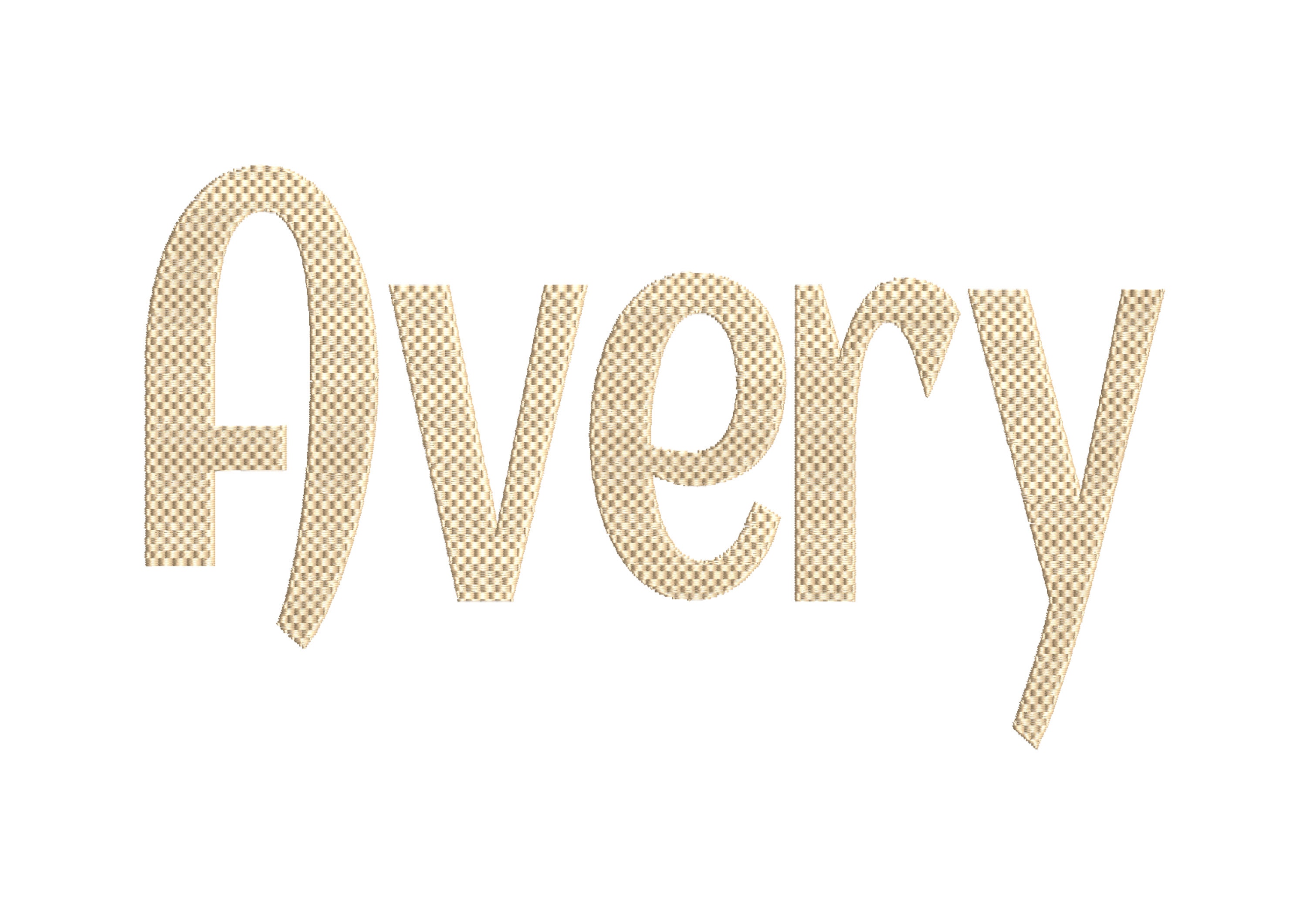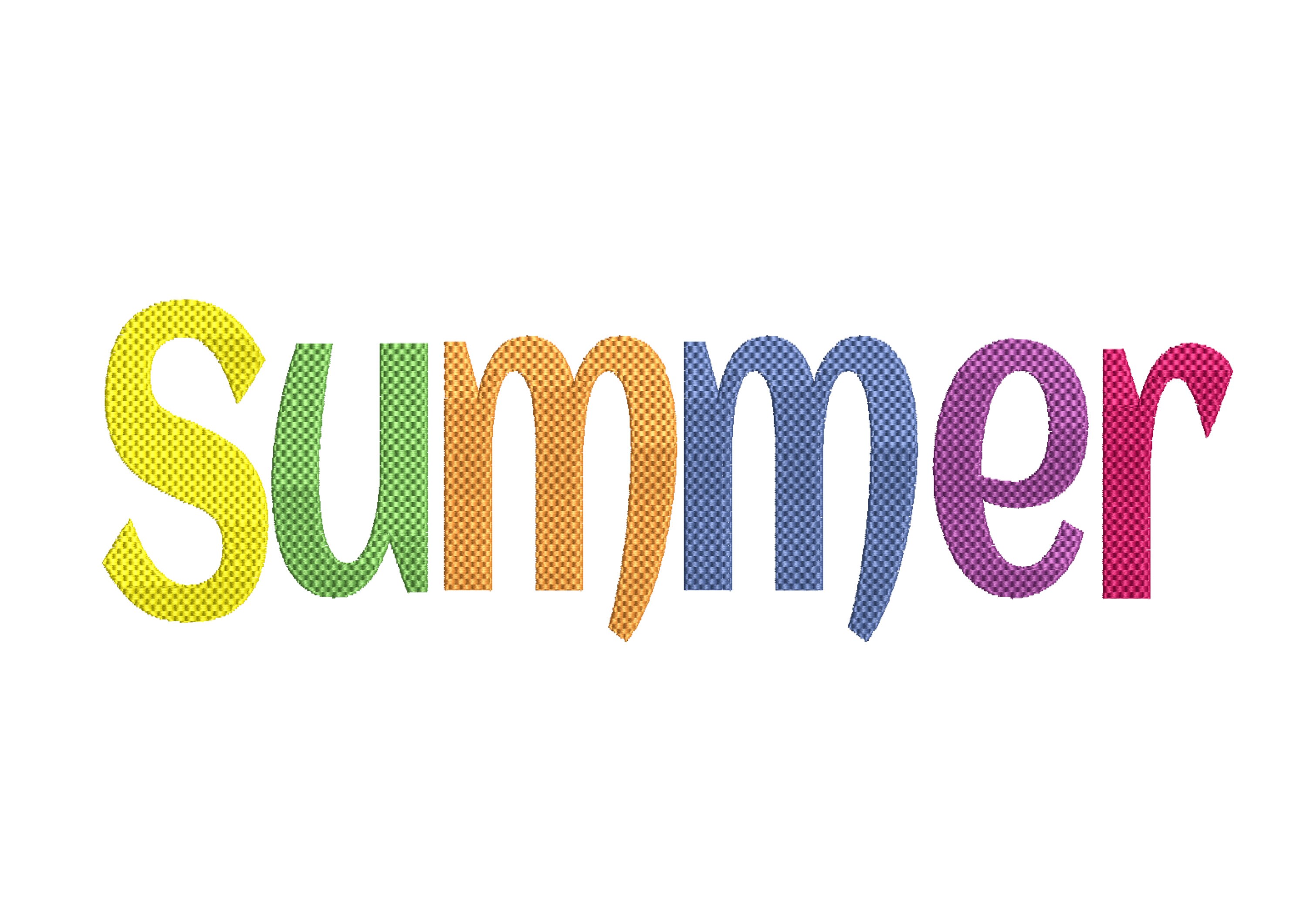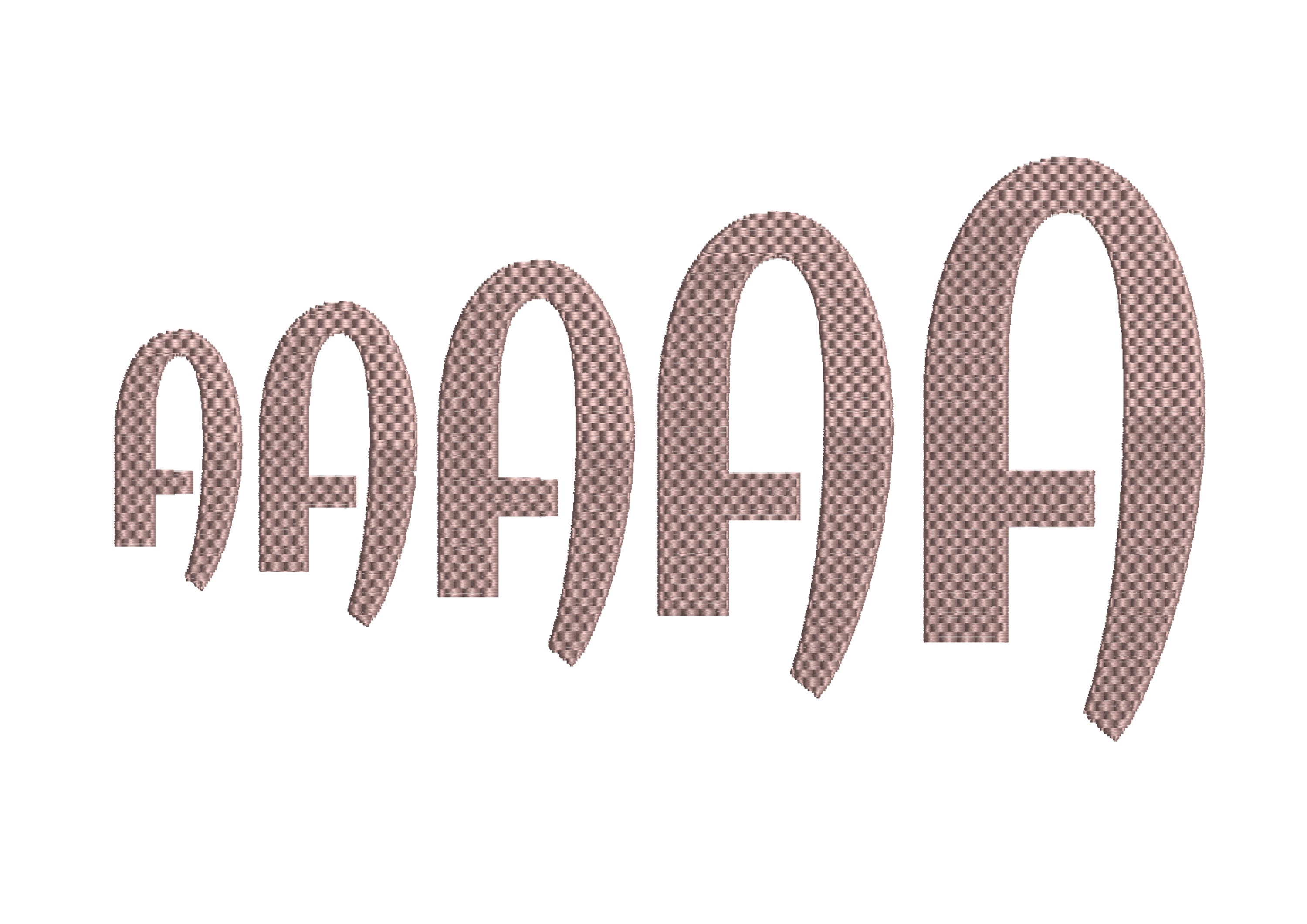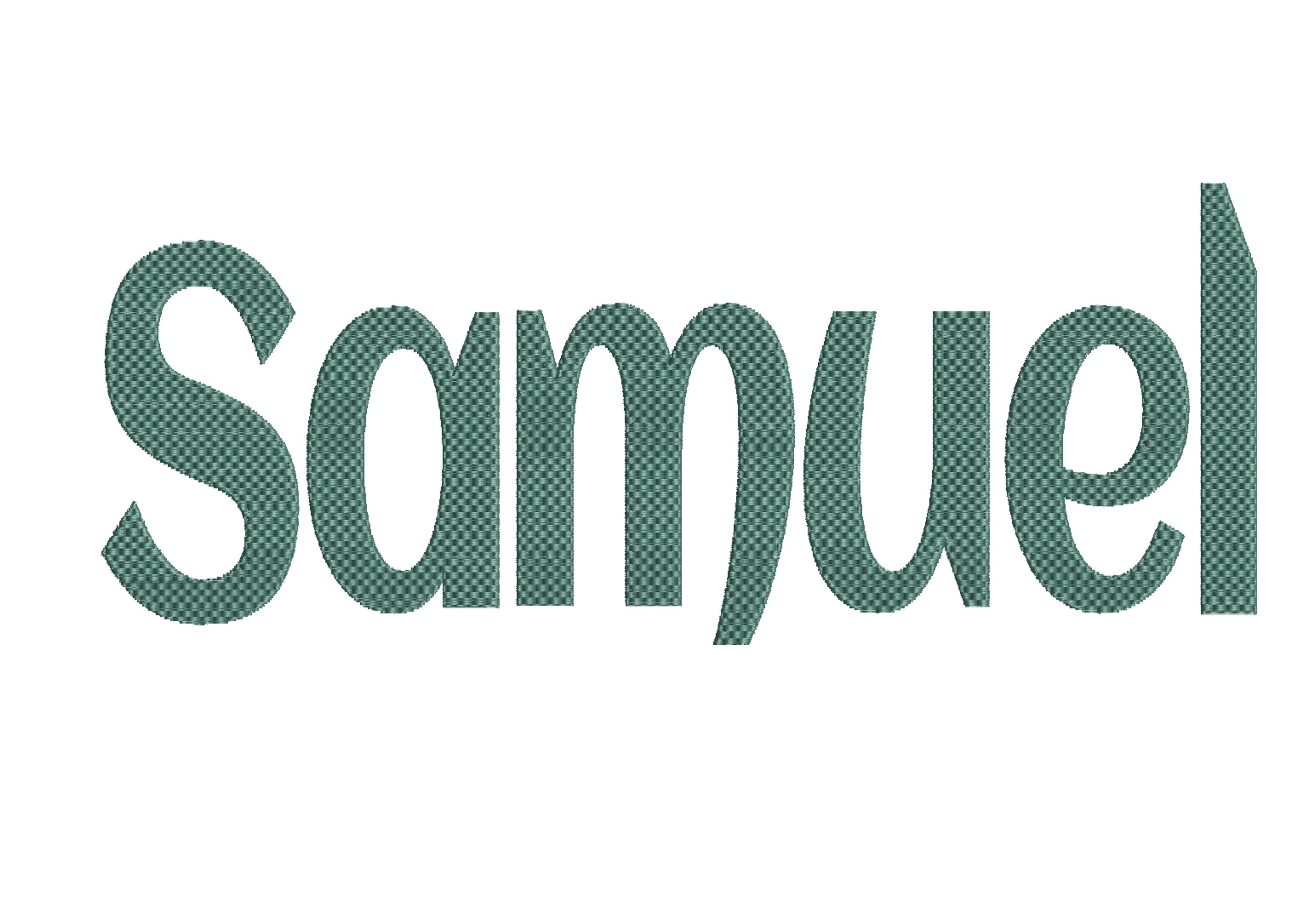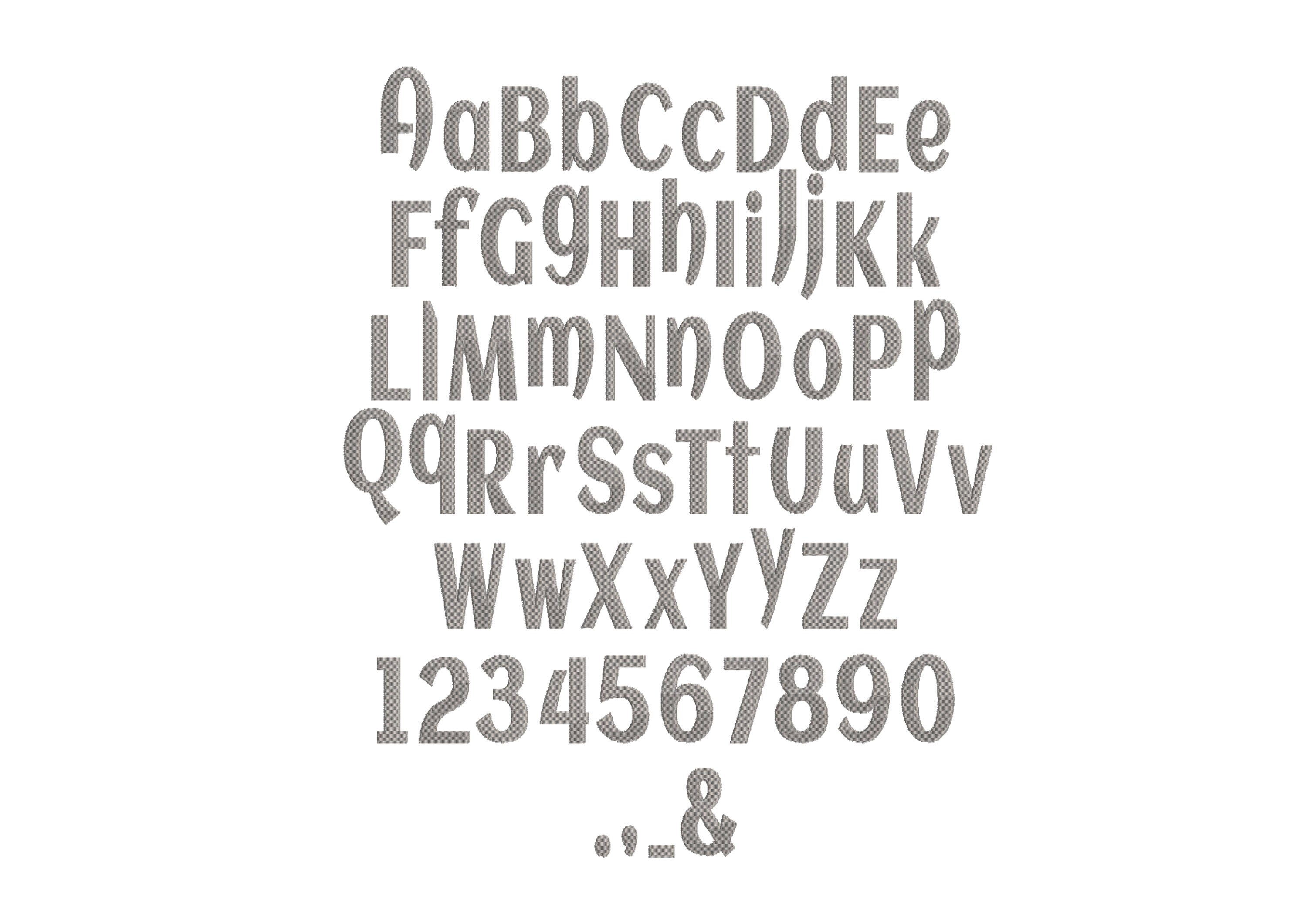
Retro fill stitch Textured Font attractive alphabet letters machine embroidery designs in sizes from 1.5 thru 3.3 inches monogram name, BX included
Fill stitch textured Font
Uppercase and lowercase letters, numbers, punctuation